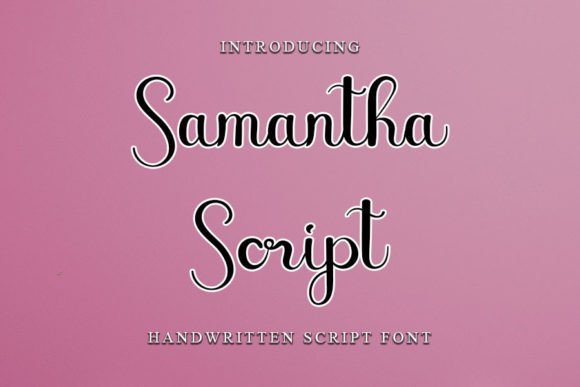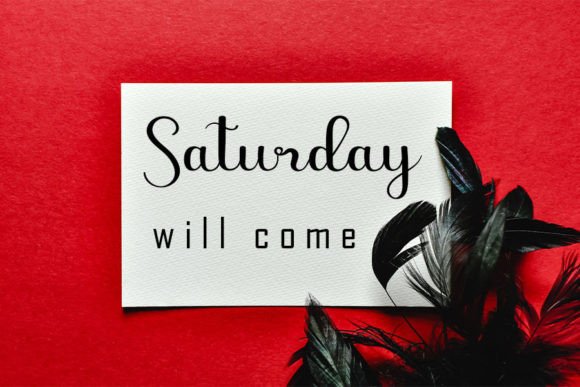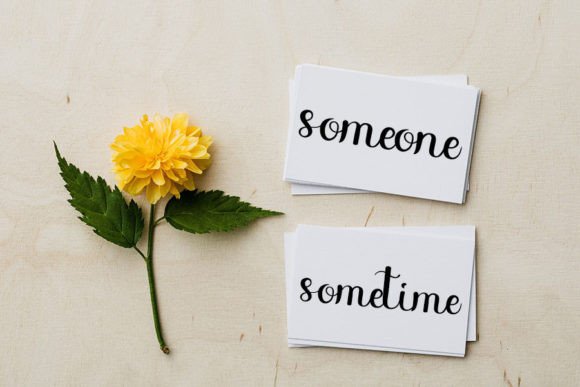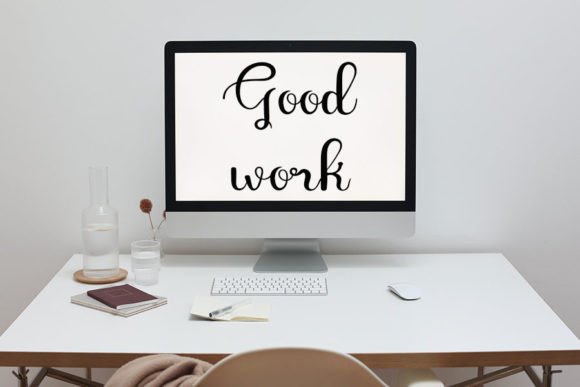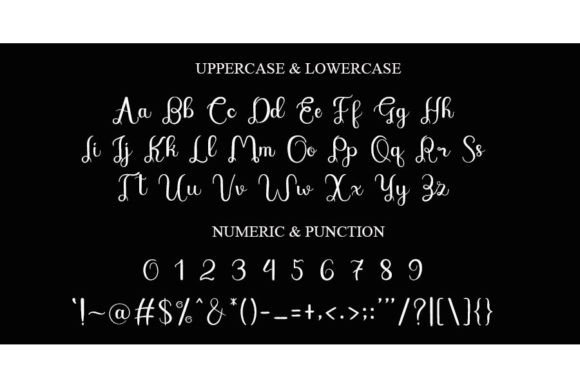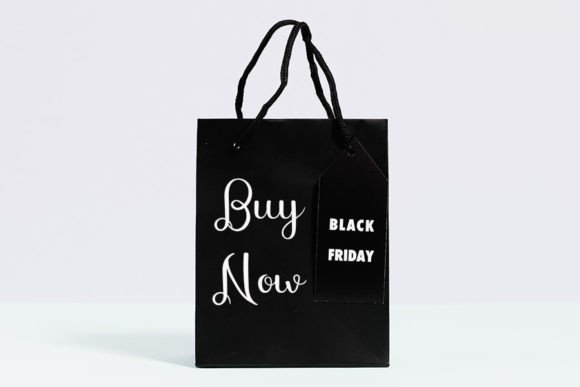
Samantha Script Font
About Samantha Script Font
“Samantha Script” is a friendly handwritten font, meticulously crafted to become a true favorite. This font strikes a balance between maintaining classy calligraphic influences and exuding a contemporary and fresh feel. It’s a versatile choice that can elevate your creative projects and make them truly outstanding.
The friendliness of “Samantha Script” adds a welcoming touch to your designs, making it suitable for a wide range of applications. Whether you’re working on invitations, branding, social media graphics, or any creative project, this font adapts seamlessly, infusing a sense of warmth and approachability.
While embracing its calligraphic roots, “Samantha Script” ensures that it feels modern and relevant. This makes it a timeless option that can endure changing design trends, ensuring its continued popularity in various creative contexts.
Incorporating “Samantha Script” into your designs allows you to tap into the charm of handwritten elements, creating a personalized and unique visual identity. Whether used for headlines, quotes, or entire blocks of text, the font’s careful design ensures readability and aesthetic appeal.
Overall, “Samantha Script” is not just a font; it’s a design companion that can elevate your projects. Its friendly and contemporary nature makes it a true favorite for those seeking a balance between timeless elegance and modern freshness. Add this script font to your creative toolkit and watch as it enhances the visual appeal of your designs.